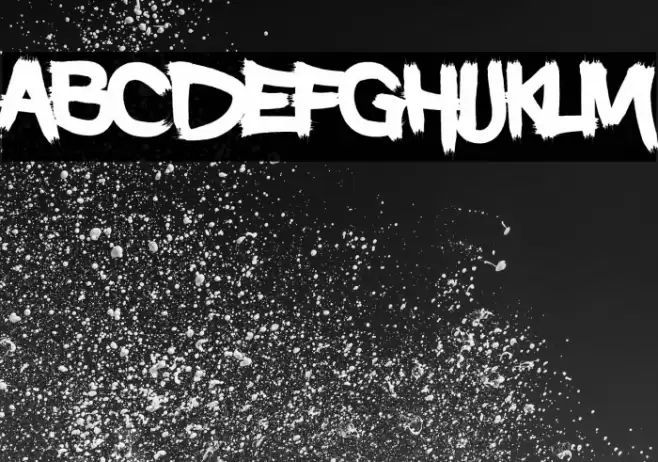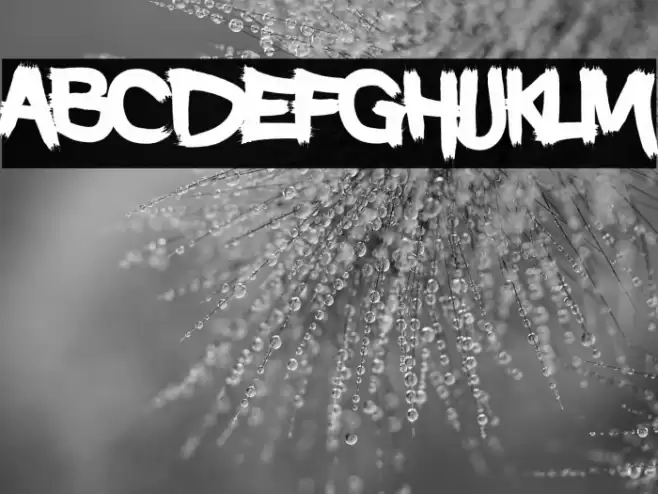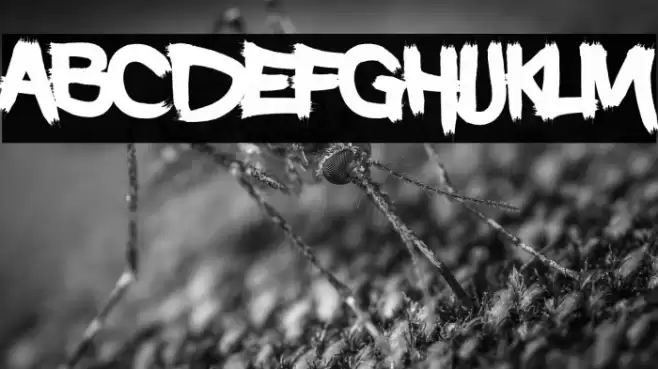
Golf Club Homicide Font
Golf Club Homicide Description
This font features a bold, brushstroke style that exudes energy and dynamism. Each character is crafted with a rough, textured appearance, reminiscent of hand-painted lettering. The uppercase and lowercase letters maintain a consistent style, with sharp angles and a slightly irregular baseline, adding to the font's raw and edgy aesthetic. The numbers and special characters follow the same design principles, ensuring uniformity across all glyphs. This font's unique style makes it stand out, perfect for projects that require a strong visual impact.
A bold, brushstroke font with a dynamic and edgy style from Uncategorized fonts.
- Font: Golf Club Homicide
- Proposed Projects: Ideal for posters, album covers, graffiti art, and branding that requires a bold statement.
Golf Club Homicide UPPERCASE
Golf Club Homicide LOWERCASE
Golf Club Homicide OTHER CHARS